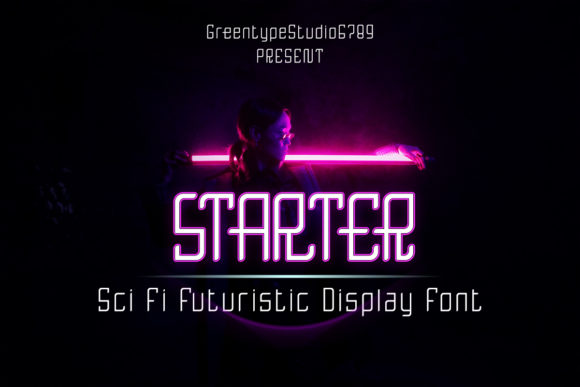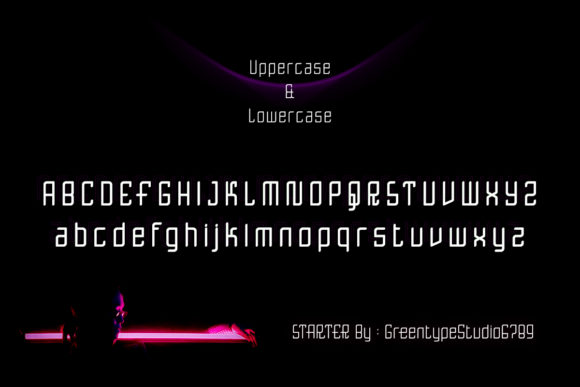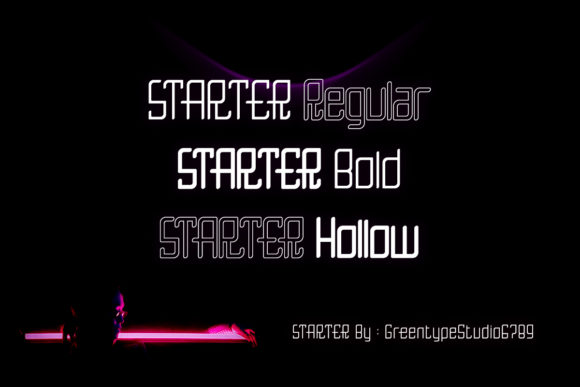
Starter
About Starter Font
Starter is a futuristic display font. It features a mix of sharp and rounded corners with wide letters. It is perfect for games, book cover, posters and anything that requires a unique look!